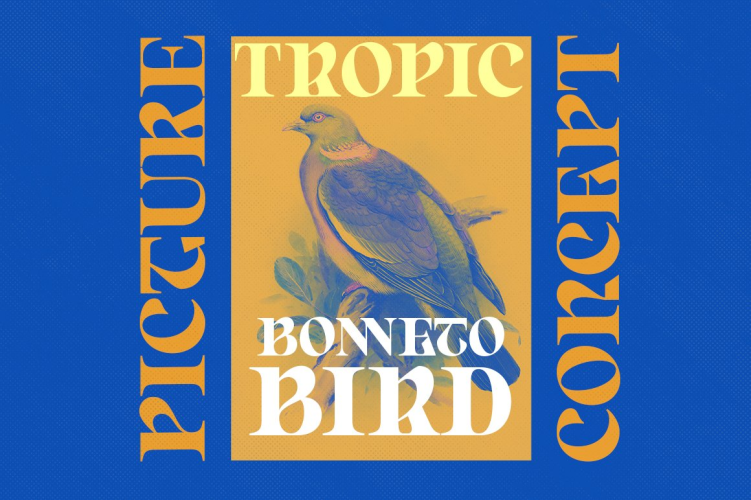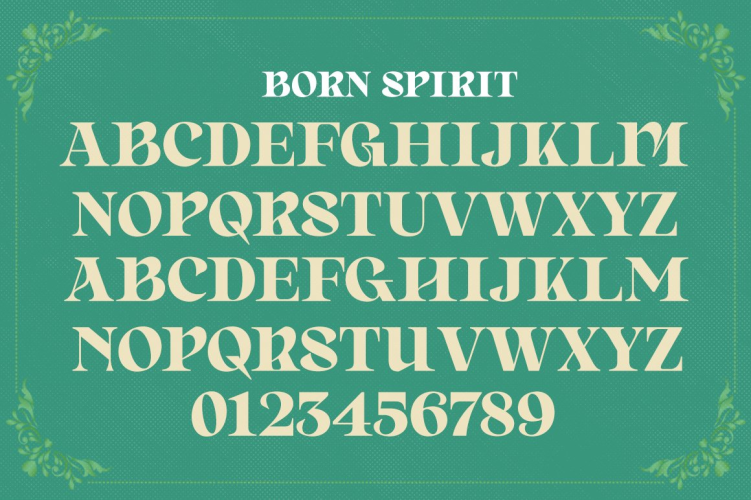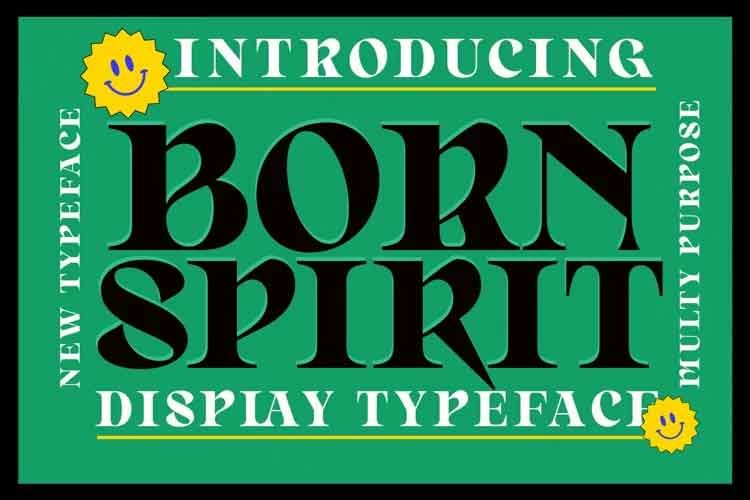
Born Spirit Font
Introducing the Born Spirit font, it is a display typeface that demands attention with a bold vintage look. Sharp hooks and strong lines create a sense of toughness. It’s great to tap into designers or product owners who need solutions to make their designs look more uniquely elegant.
Born Spirit Font is a Display Fonts font that brings a professional and versatile look to your projects. Introducing the Born Spirit font, it is a display typeface that demands attention with a bold vintage look.